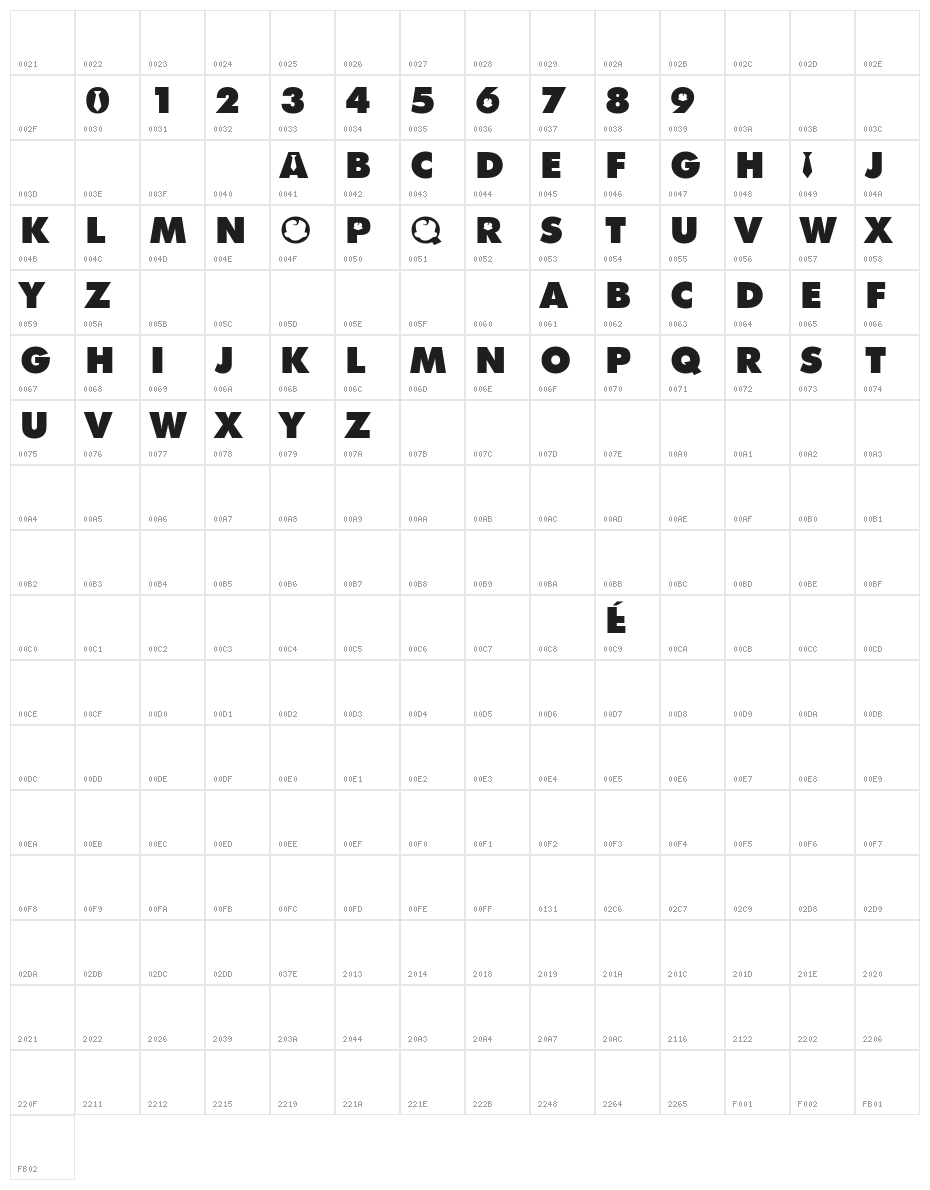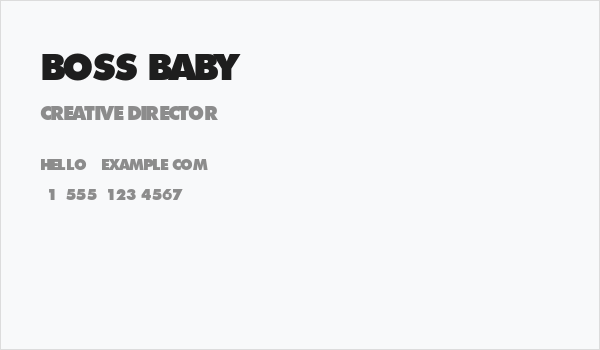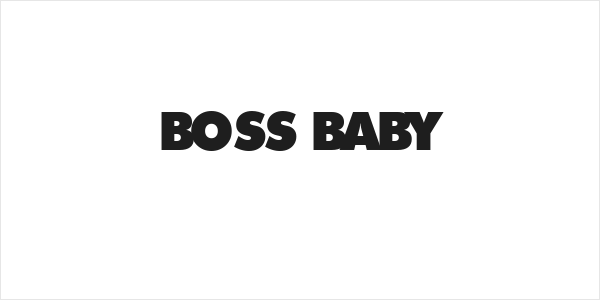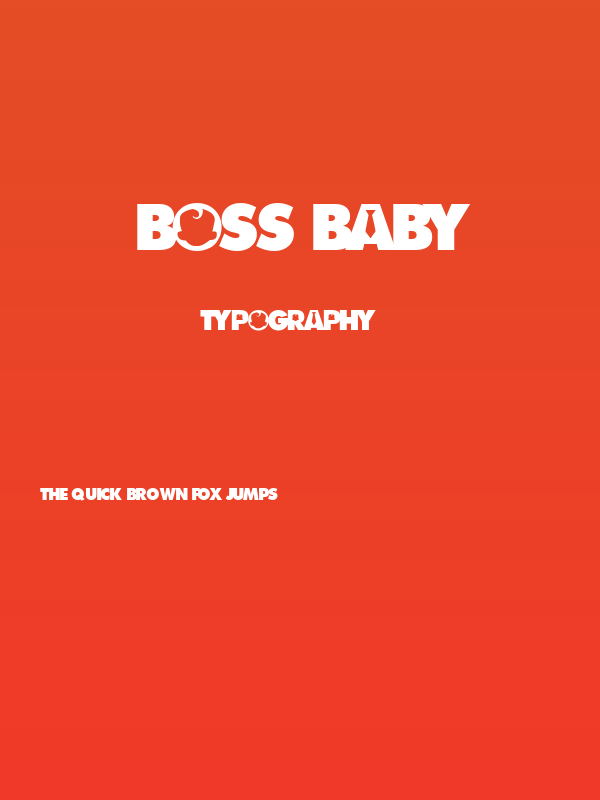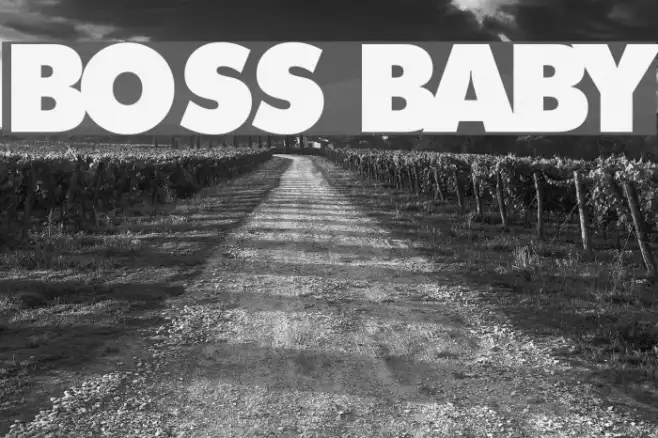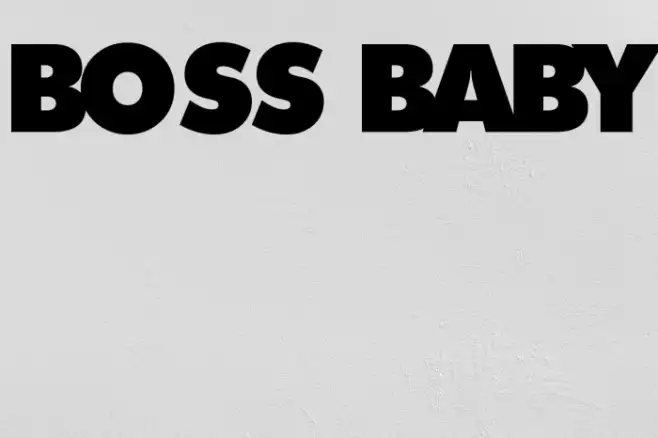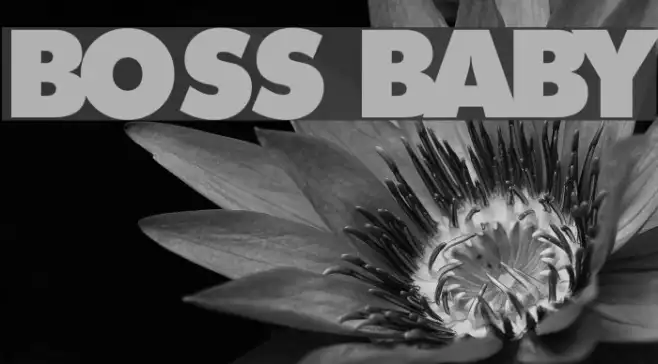
Boss Baby Font
Boss Baby Description
This font is a bold, playful display typeface with a strong, impactful presence. The uppercase letters are characterized by thick, uniform strokes and a geometric structure, creating a sense of stability and strength. Unique design elements, such as the incorporation of playful shapes within certain letters, add a whimsical touch, making it ideal for projects that require a fun and engaging aesthetic. The numbers and special characters maintain the same boldness and playful style, ensuring consistency across all text elements. This typeface is perfect for capturing attention and conveying a sense of fun and creativity.
BOSS-BABY UPPERCASE
BOSS-BABY LOWERCASE
BOSS-BABY OTHER CHARS
| Overall Style | Playful, Modern |
| Proposed Projects | Ideal for children's book covers, playful branding, movie posters, and any project needing a fun, bold typeface. |